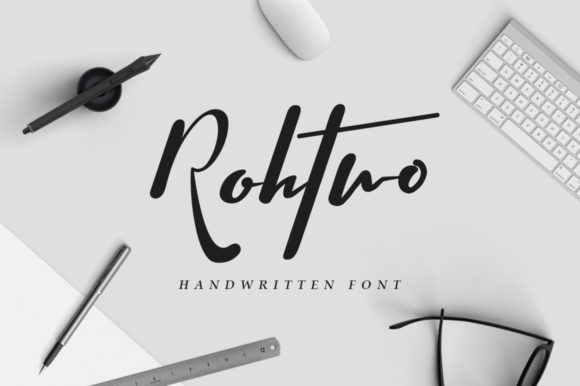
Journey into the realm of Rohtwo, a modern handwritten font brimming with charm and elegance. Its captivating strokes and playful character bring a touch of artistry to any design, leaving an unforgettable impression. Let Rohtwo grace your branding, headings, wedding designs, invitations, signatures, logos, labels, and more, elevating each project to new heights of sophistication.
Rohtwo's versatility extends far beyond its aesthetic appeal. Its meticulously crafted glyphs lend themselves seamlessly to a wide range of design styles, from classic and timeless to contemporary and edgy. Whether you're designing a high-end fashion campaign or a whimsical children's book, Rohtwo seamlessly adapts to your vision, like a loyal companion on your creative journey.
With Rohtwo by your side, your designs will blossom into masterpieces. Its graceful curves and fluid lines evoke a sense of artistry and passion, captivating your audience with their effortless elegance. Let Rohtwo transform your words into visual poetry, leaving a lasting impact that resonates with hearts and minds.
Embrace Rohtwo, the ultimate expression of creativity and style, and embark on a journey where imagination knows no bounds. Discover the endless possibilities that await you, and let your designs shine with a touch of brilliance that sets them apart from the ordinary. Rohtwo is more than just a font; it's an experience, an invitation to unlock the full potential of your artistic vision.